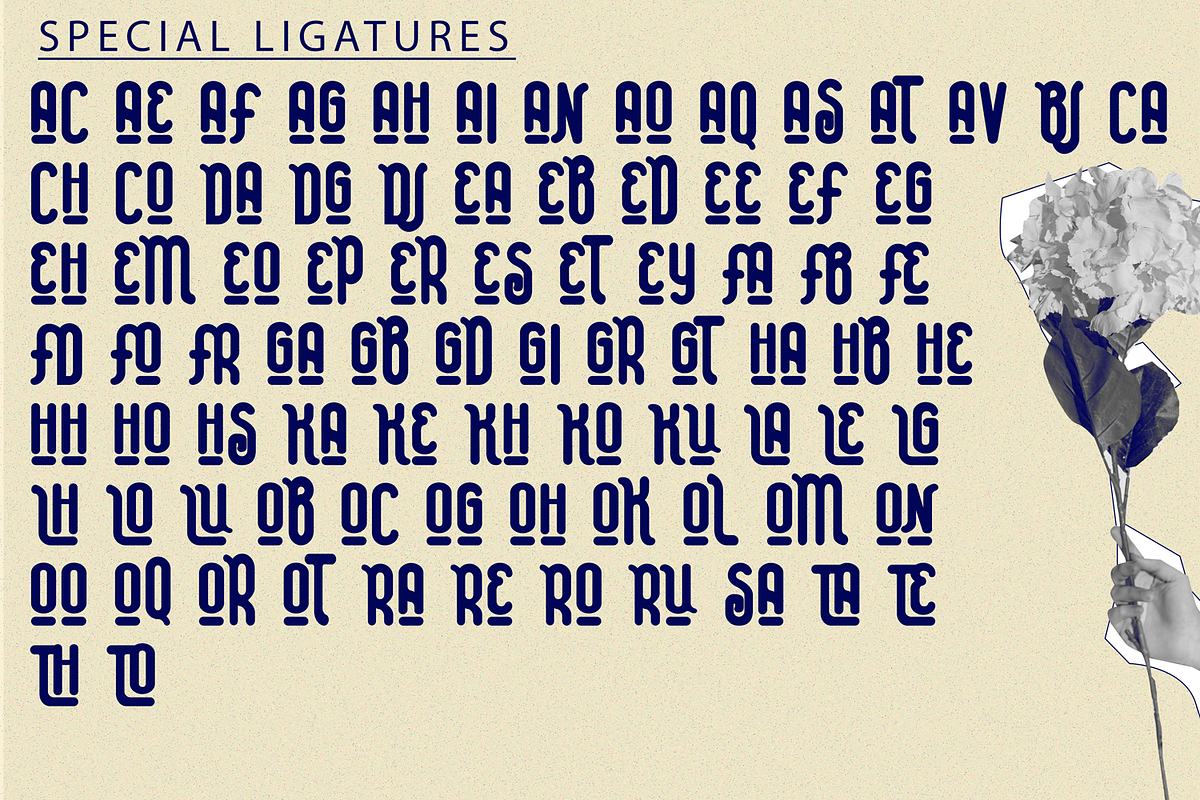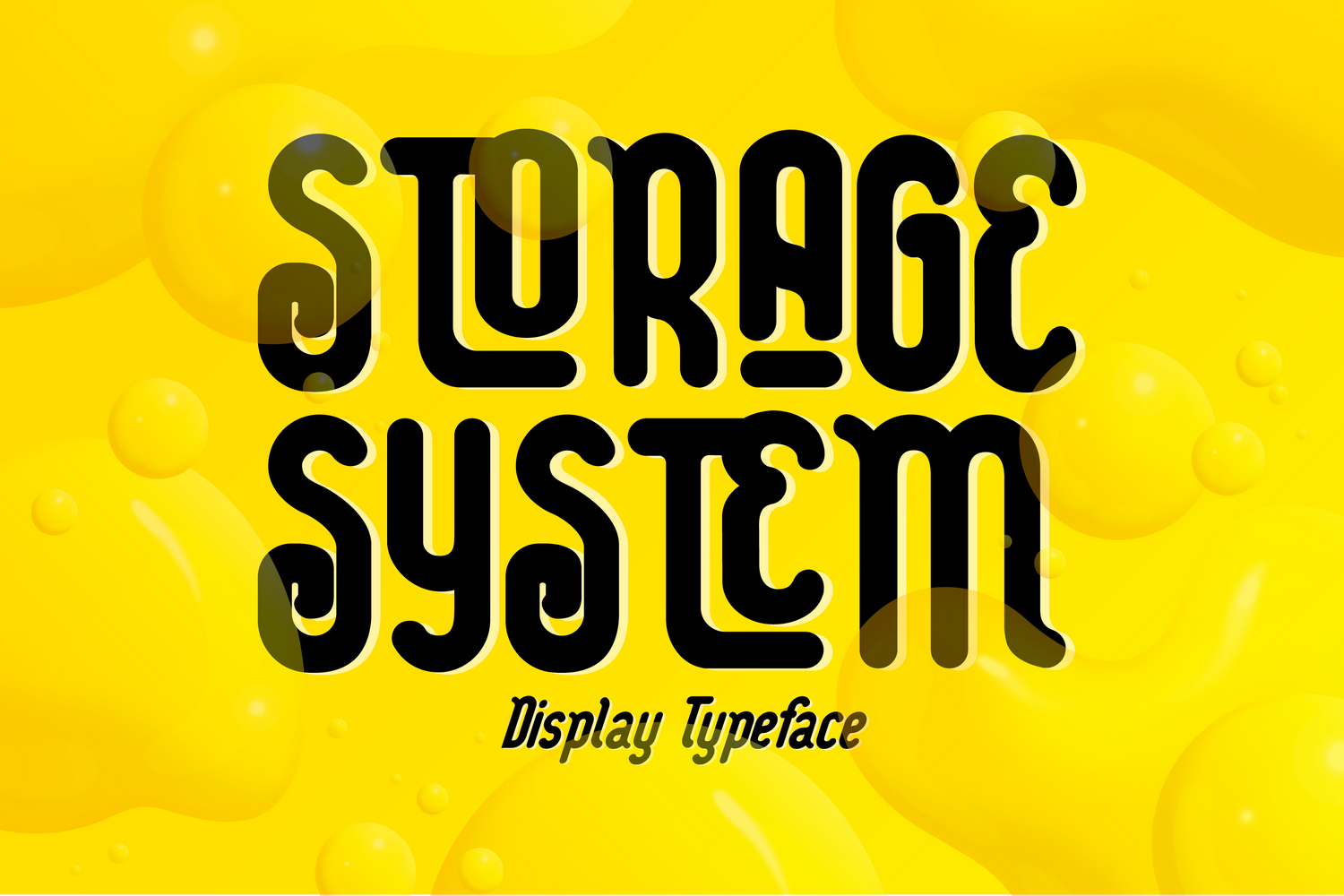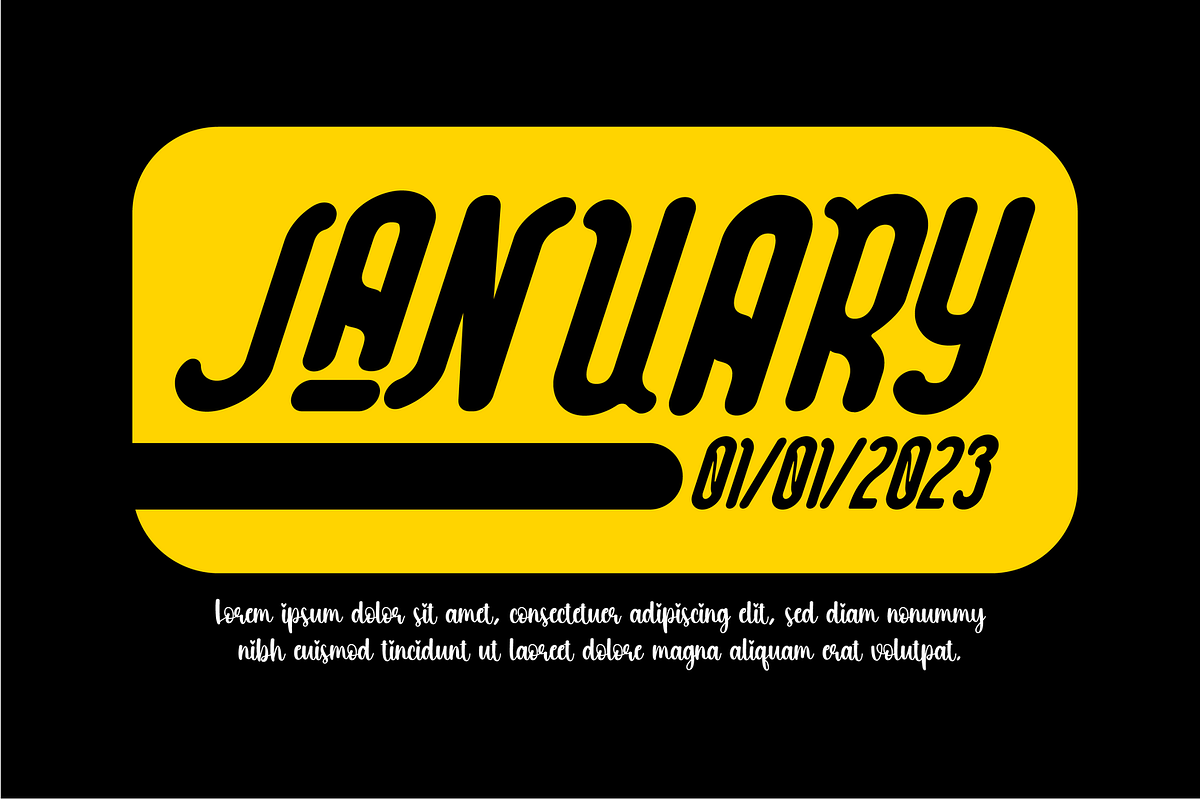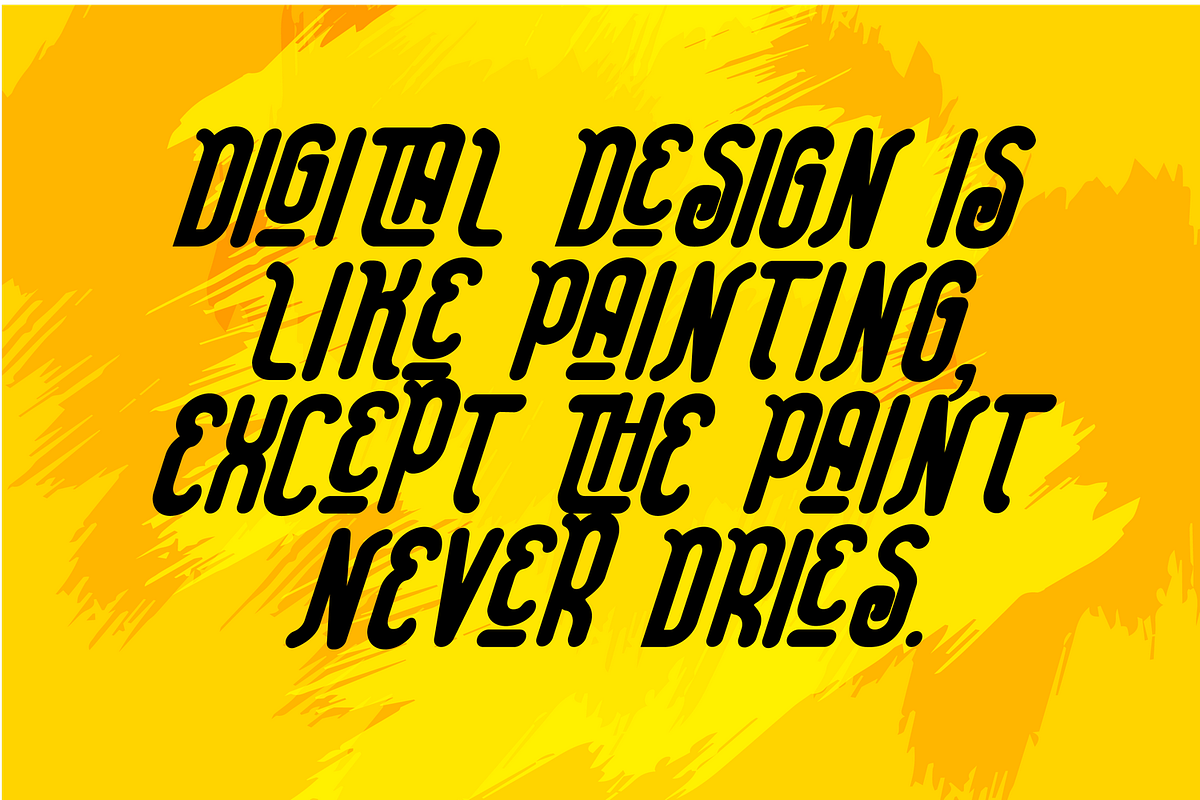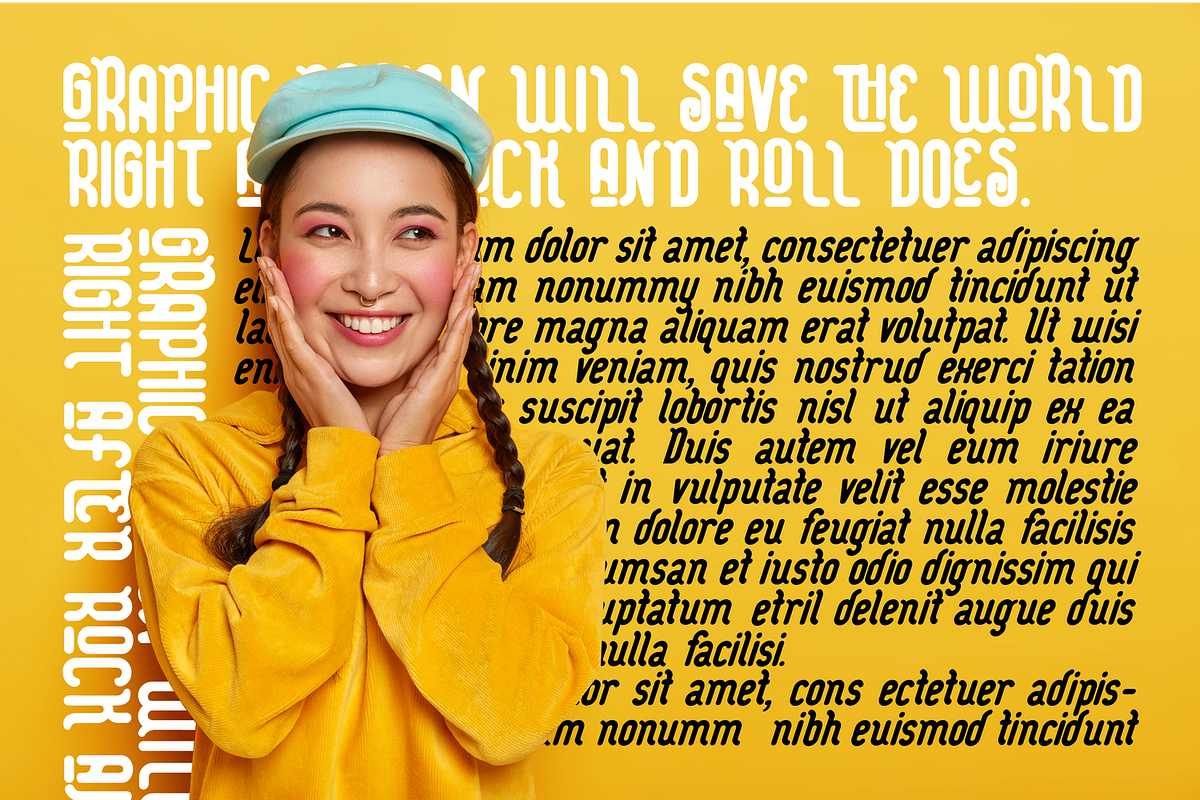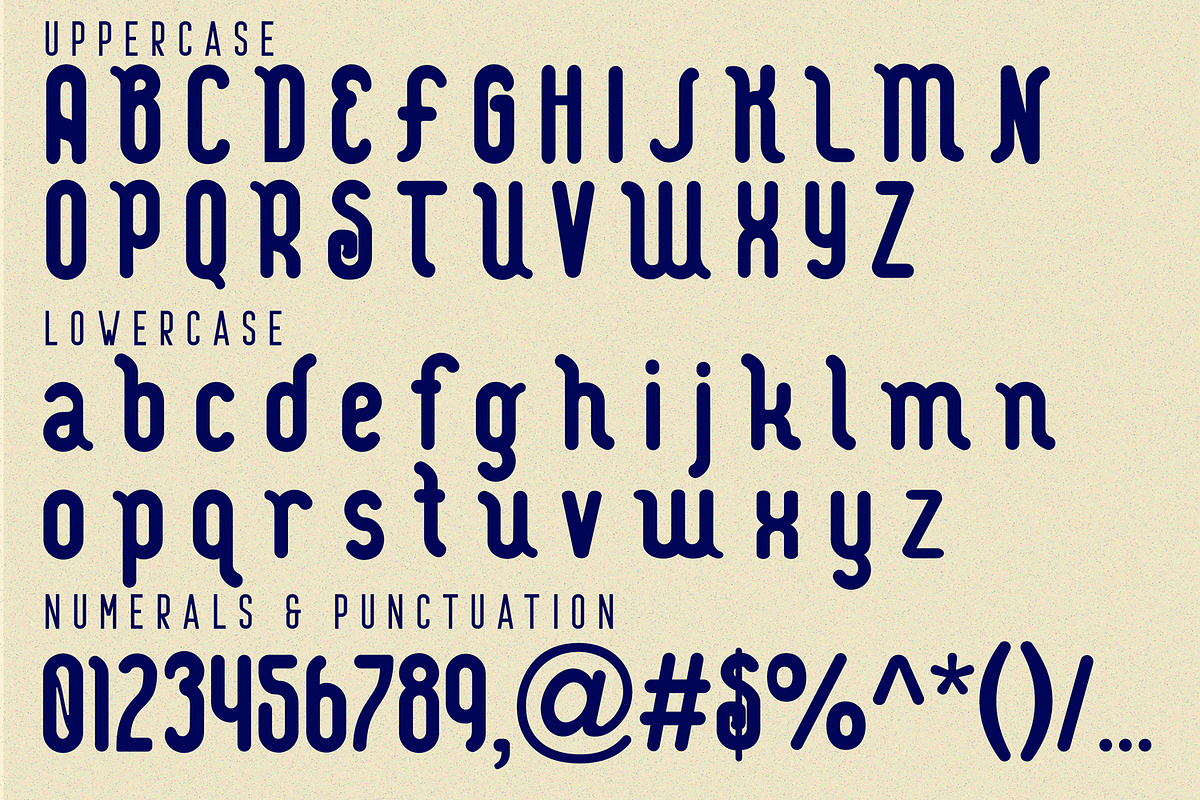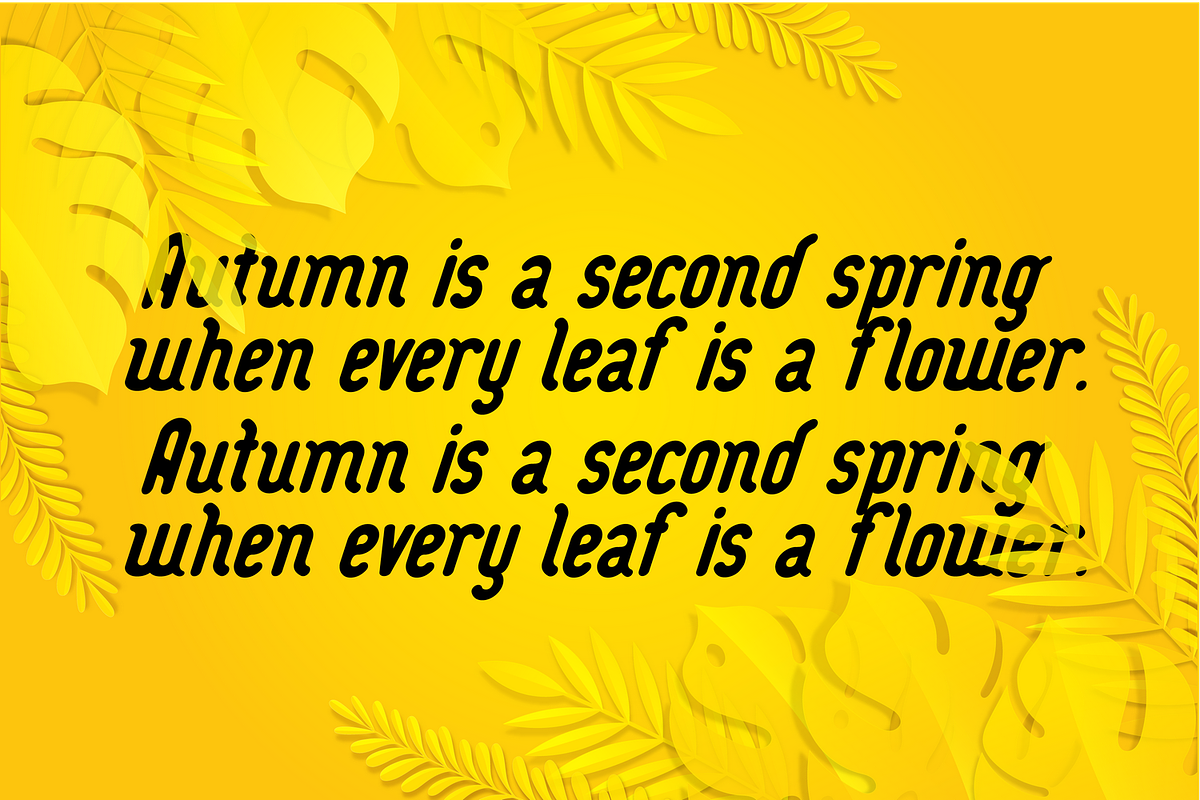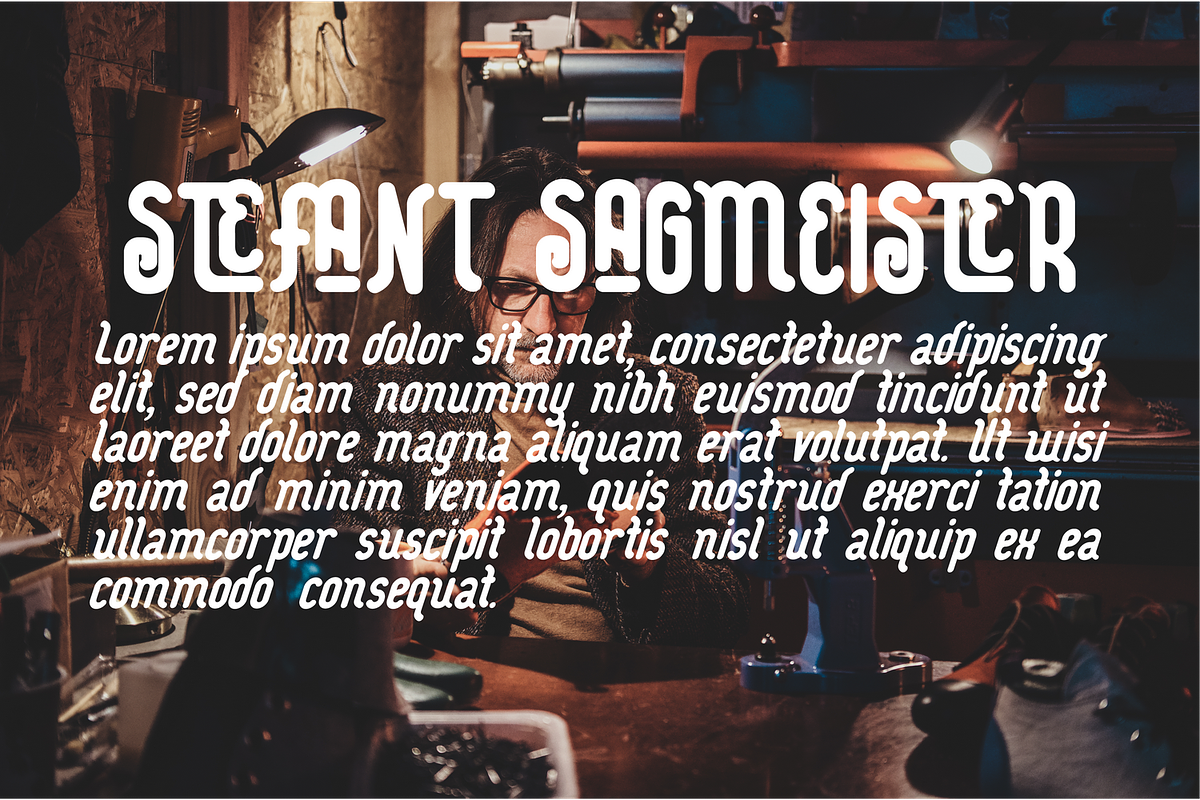
STORAGE SYSTEM - Rounded Font
STORAGE SYSTEM - Rounded Font is a simple, condensed sans serif font with bold and complex personality. It is a clean, minimal, modern sans typeface. It looks smooth in any layout with its sleek rounded lines, use it for your magazines, brochures and editorial layouts. With this rounded version, you can be even more expressive in your design projects. It's makes awesome headings, it looks great on its own or with imagery, body copy looks neat and tidy.
To make it look more unique, here we prepared some ligatures:
AC AE AF AG AH AI AN AO AQ AS AT AV BJ CA CH CO DA DG DJ EA EB ED EE EF EG EH EM EO EP ER ES ET EY FA FB FE FD FO FR GA GB GD GI GR GT HA HB HE HH HO HS KA KE KH KO KU LA LE LG LH LO LU OB OC OG OH OK OL OM ON OO OQ OR OT RA RE RO RU SA TA TE TH TO
STORAGE SYSTEM is also included full set of:
- Special Ligatures